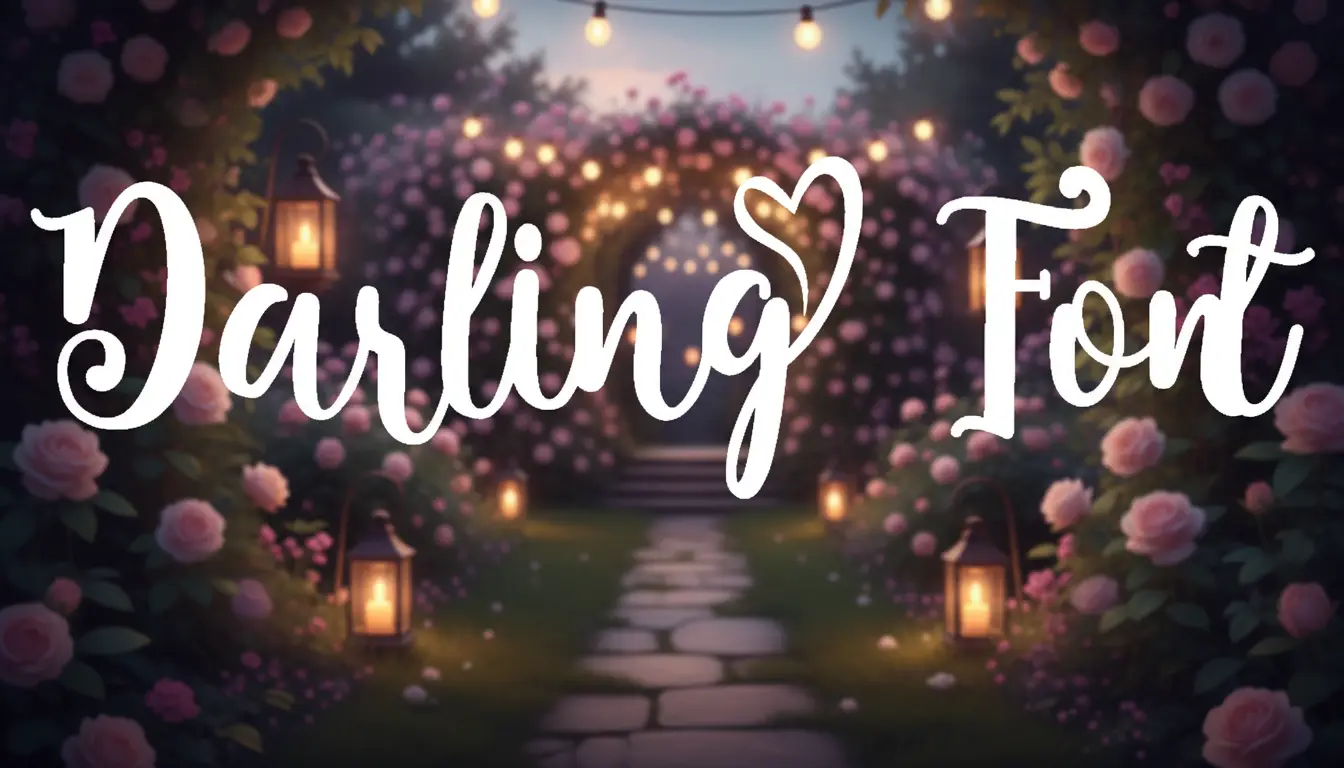
Darling Font
Darling is a fancy font created by ABDUL GHOFUR and released through GFRcreative. It's a decorative display font with plenty of personality, made to grab attention. It's a free download, and you can try it with your own text in the preview above first.
Darling Font Details
What You Can Type With Darling
You get every letter from A to Z in both cases and all the numbers from 0 to 9, which means Darling can handle full sentences, dates and prices. Common punctuation such as &, !, ? and @ is included as well. It also has the accented letters you need for Spanish, French, German, Portuguese and Italian.
Where Darling Works Best
Darling is a natural fit for posters, logos and eye-catching headlines. Use it for one standout word or headline and let simpler fonts handle the rest.
Does Darling support accented letters?
Yes. Darling includes the accented letters needed for Spanish, French, German, Portuguese and Italian, so it works for more than just English.